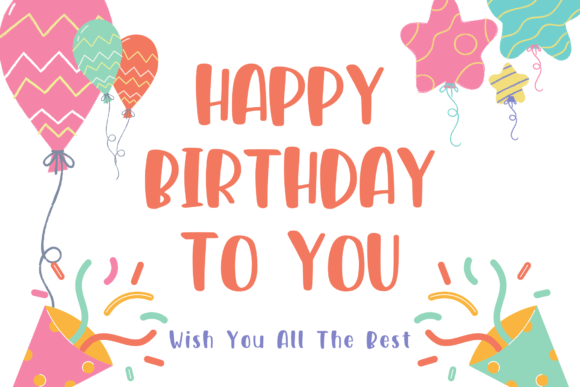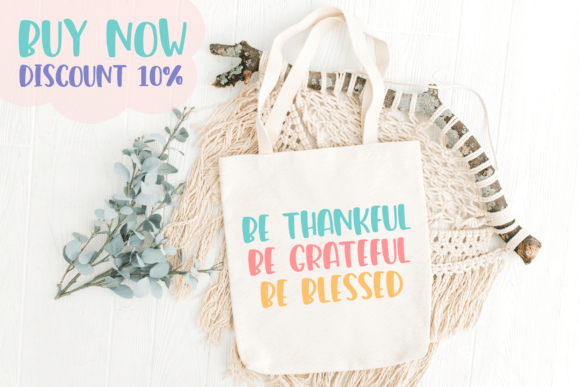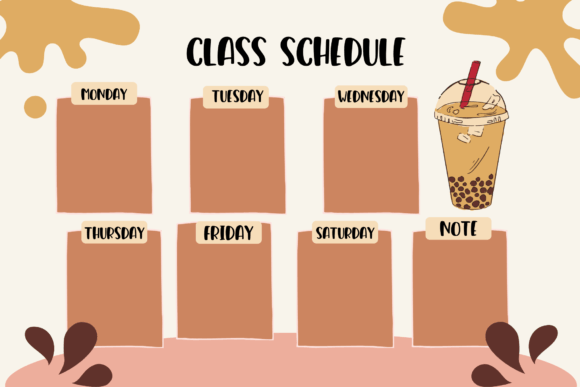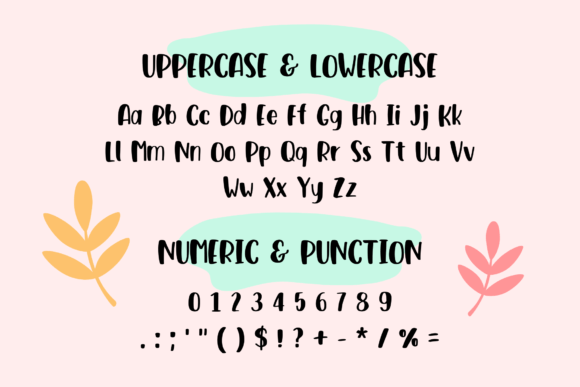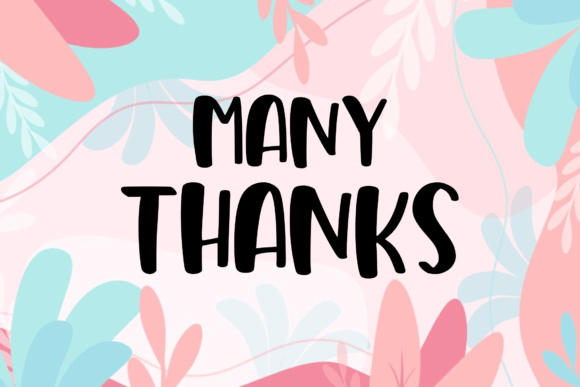
Bentone Font
About Bentone Font
Bentone is a friendly and cute handwritten font. Whether you’re using it for crafts, digital design, presentations, or making greeting cards, this font has the potential to become your favorite go-to font, no matter the occasion!